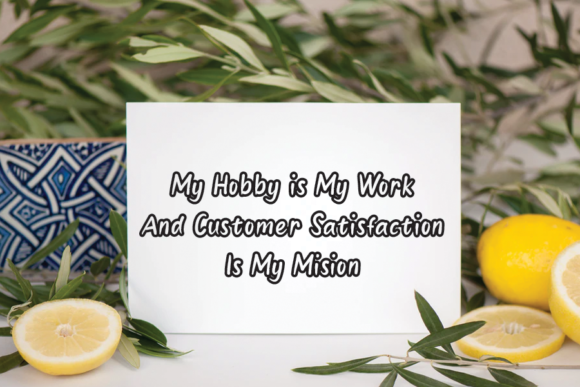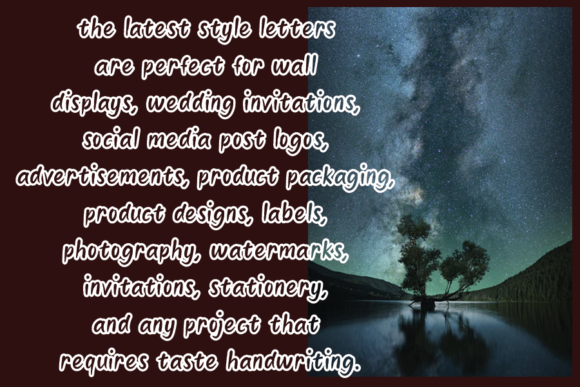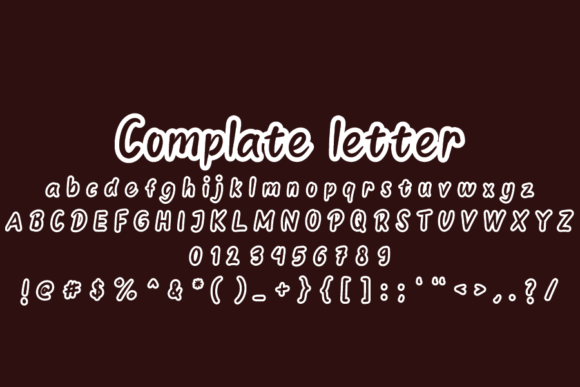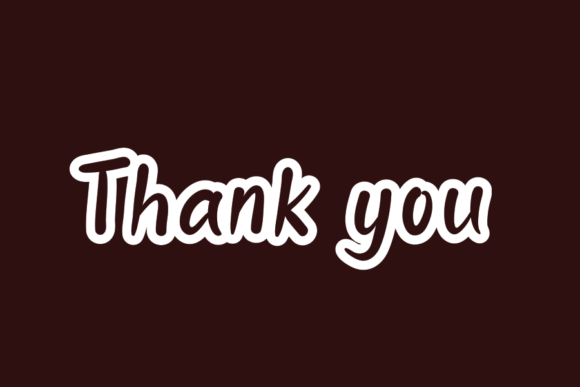
Sweet Room Font
About Sweet Room Font
Sweet Room is an exquisite handwritten font, masterfully designed to become a true favorite. It maintains its classy calligraphic influences while feeling contemporary and fresh. Fall in love with it and bring your projects to the highest levels!